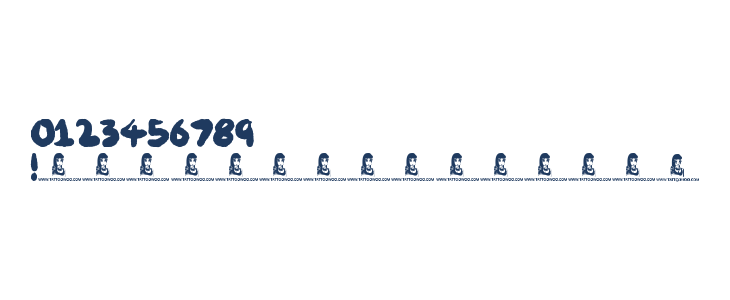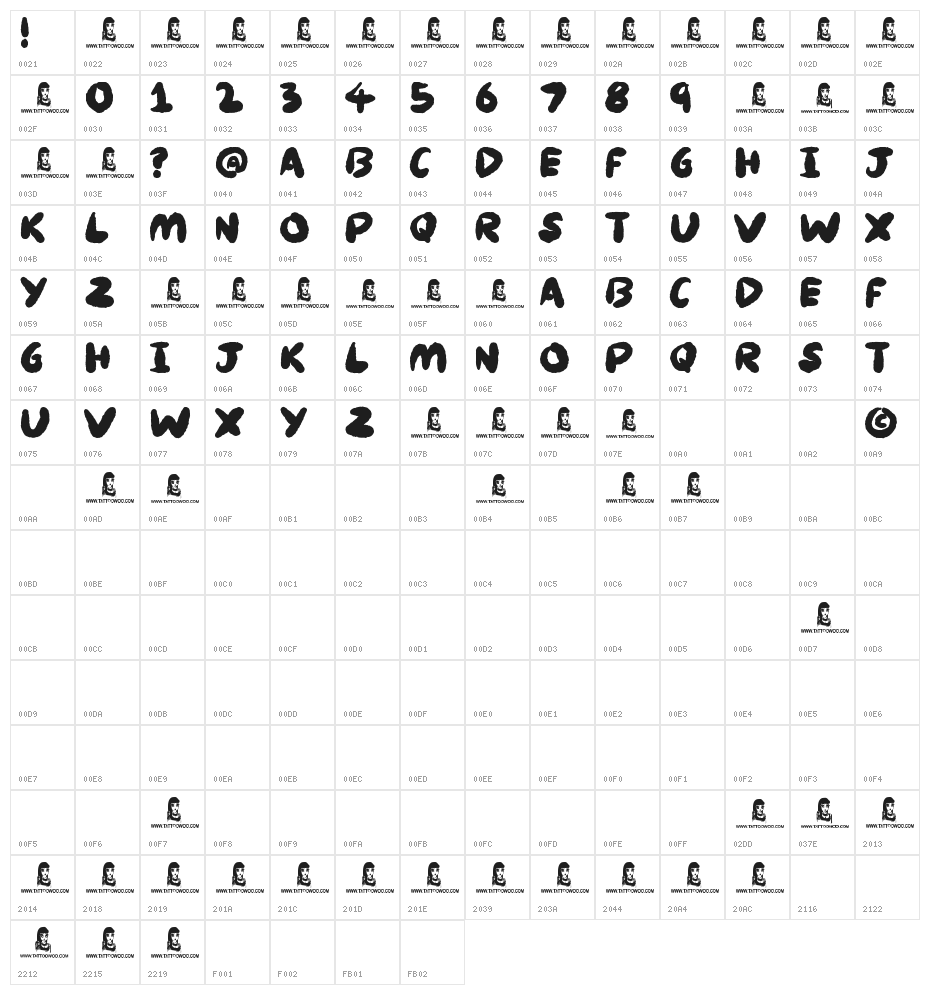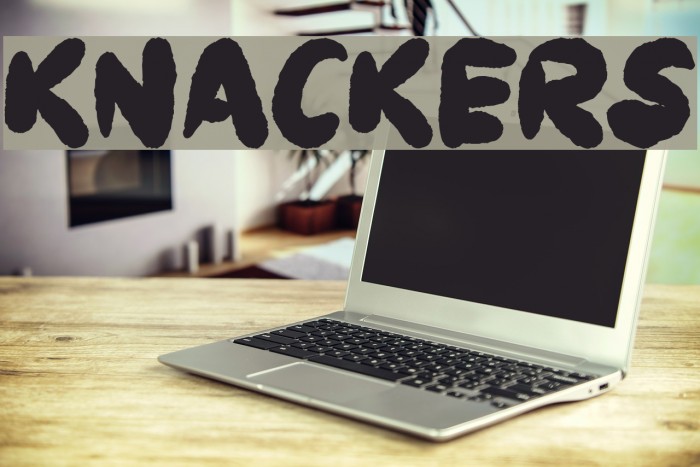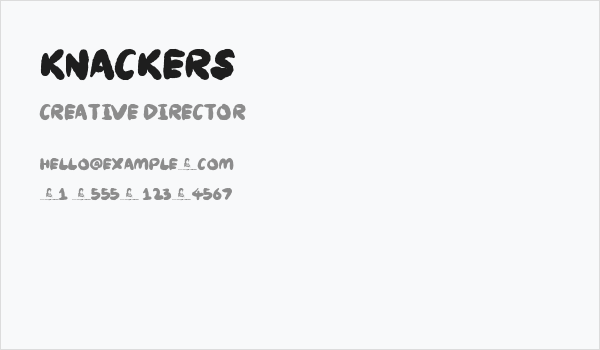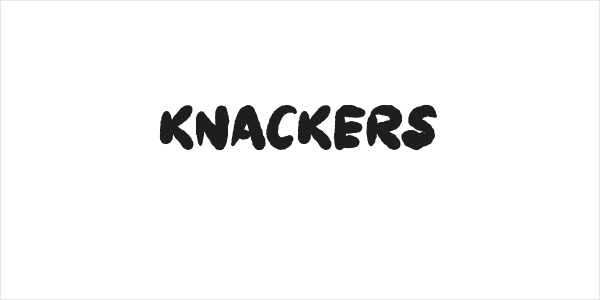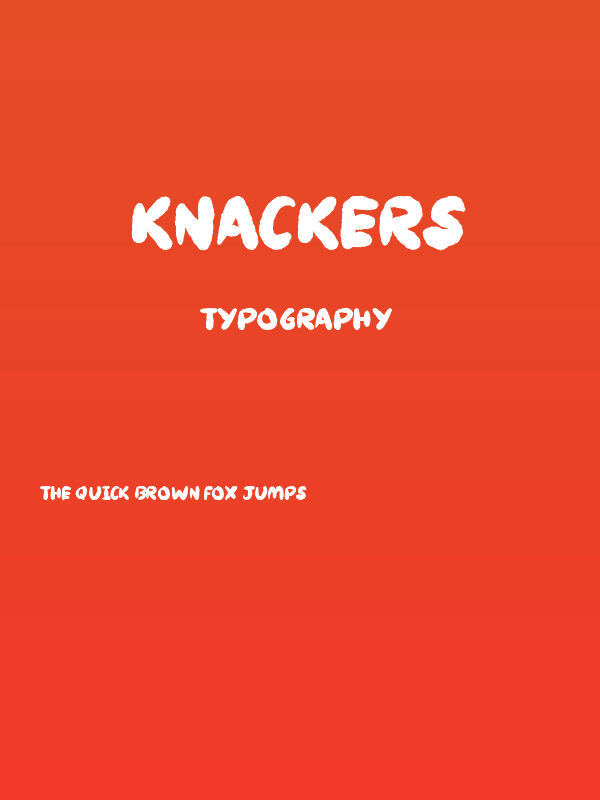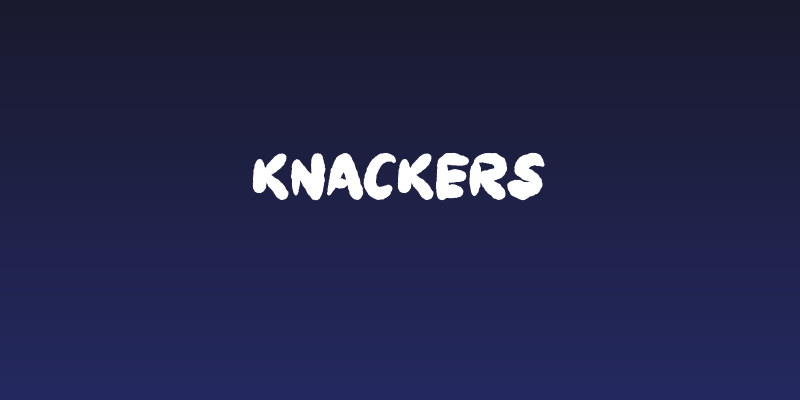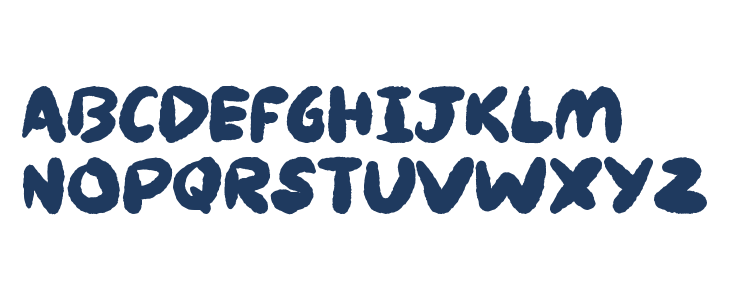
Knackers Font
Knackers Description
This font features a bold, playful style with rounded edges and a hand-drawn appearance. The characters are thick and have a consistent weight, giving them a strong presence on the page. The strokes are smooth and slightly irregular, adding a casual, informal feel. The font maintains a uniform size across all characters, ensuring readability while retaining its unique character. The numbers and special characters follow the same design principles, making them cohesive with the alphabet. This font is ideal for projects that require a fun and approachable look.
| Overall Style | Casual |
| Proposed Projects | Suitable for children's books, comic strips, playful branding, and casual event invitations. |